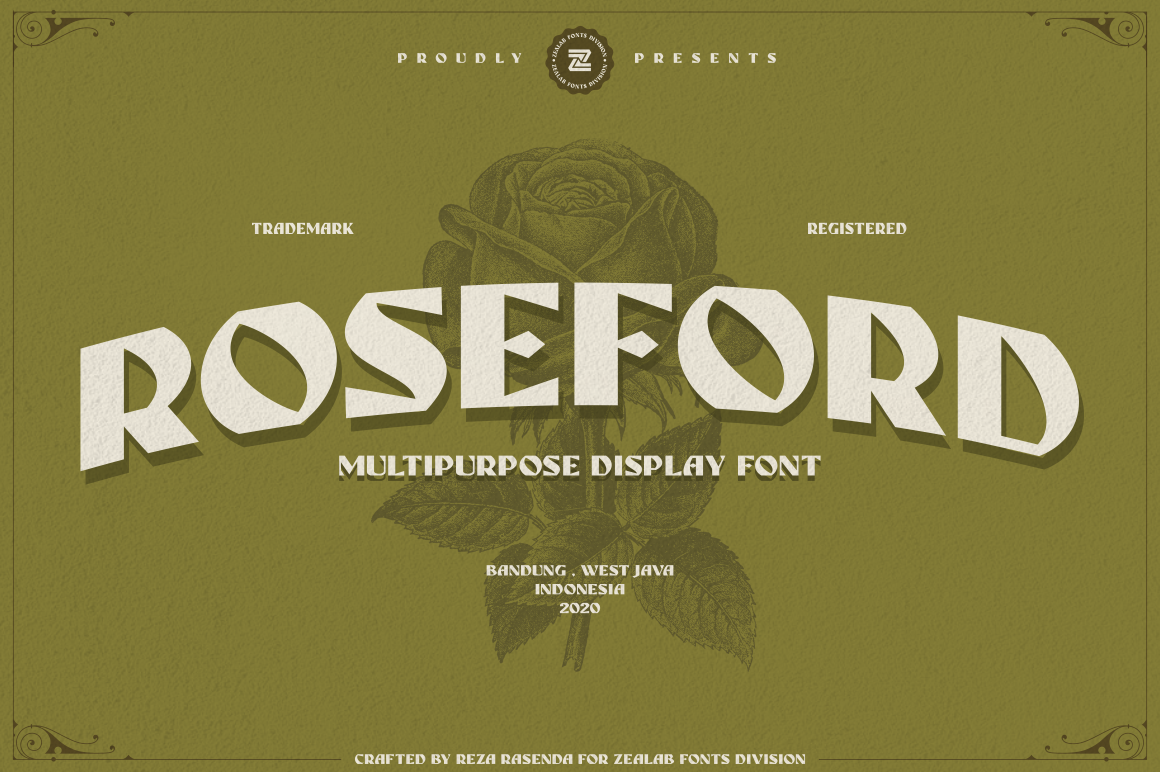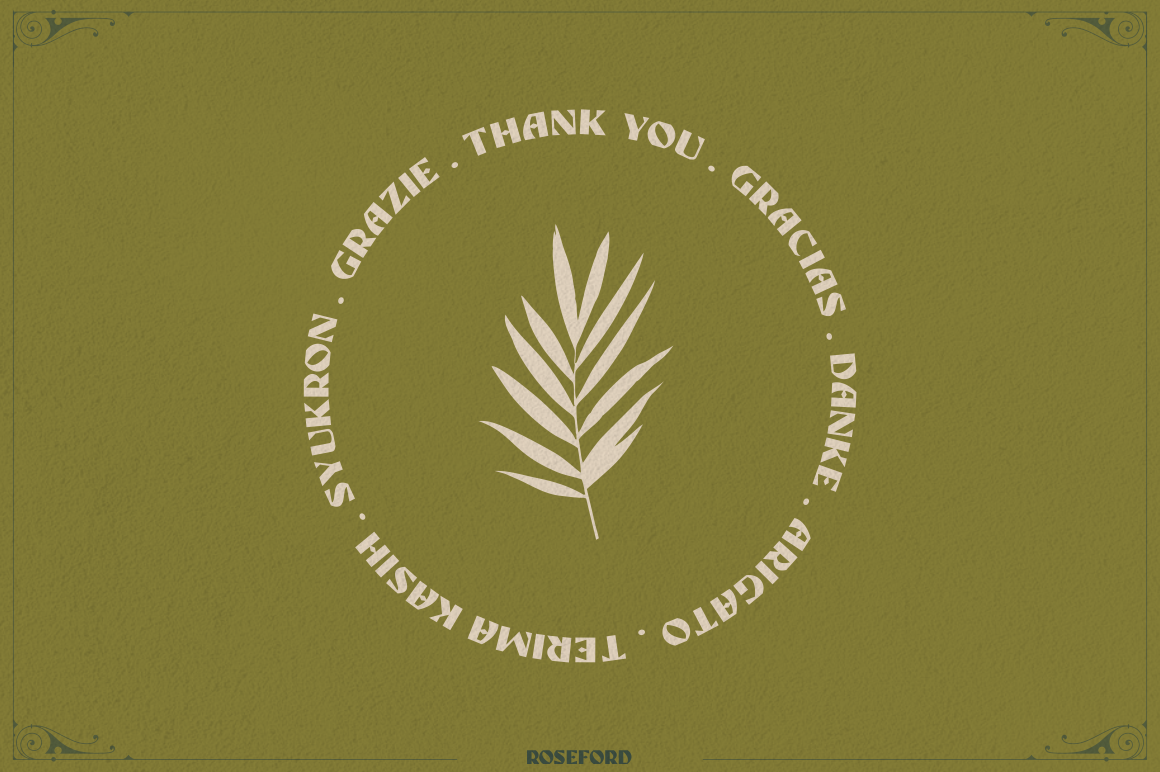
ROSEFORD, A multipurpose display typeface with cool characters, inspired by classic signs and magazine.
perfect for headlines, logotypes, signs, posters, greeting card, letterhead, t-shirt, and many more.
Roseford